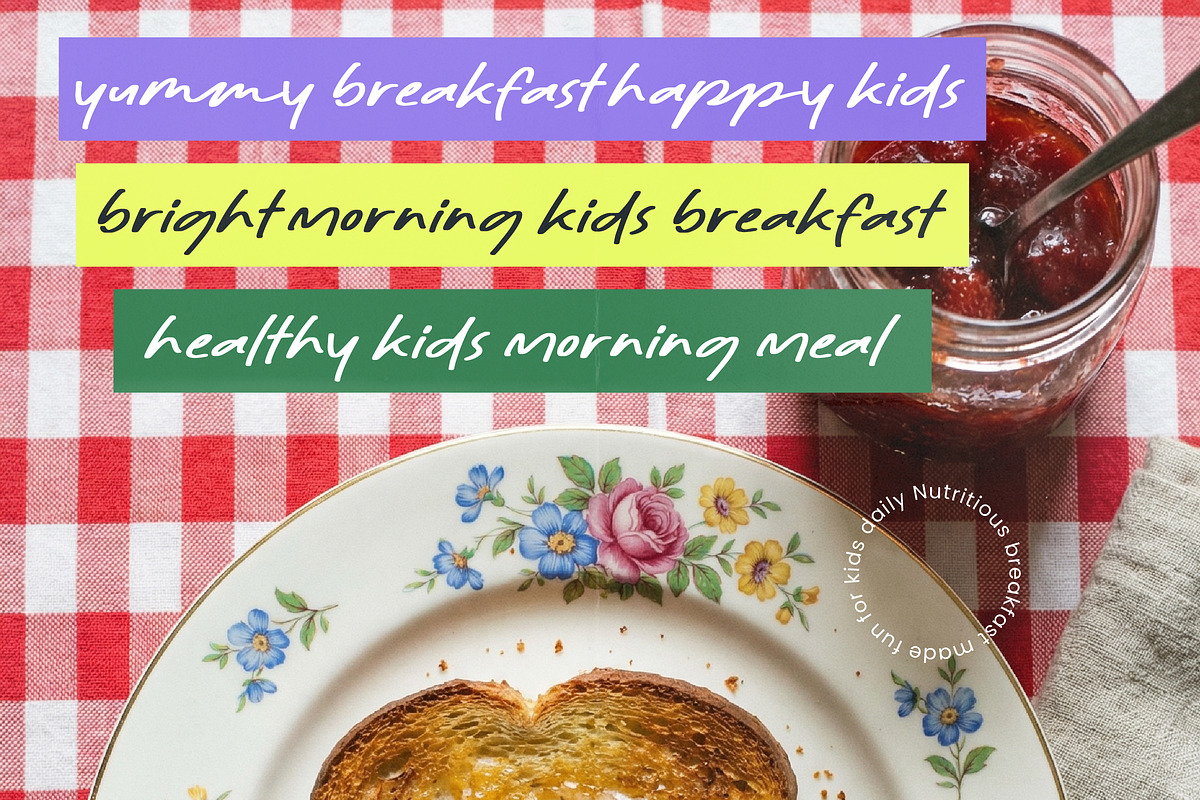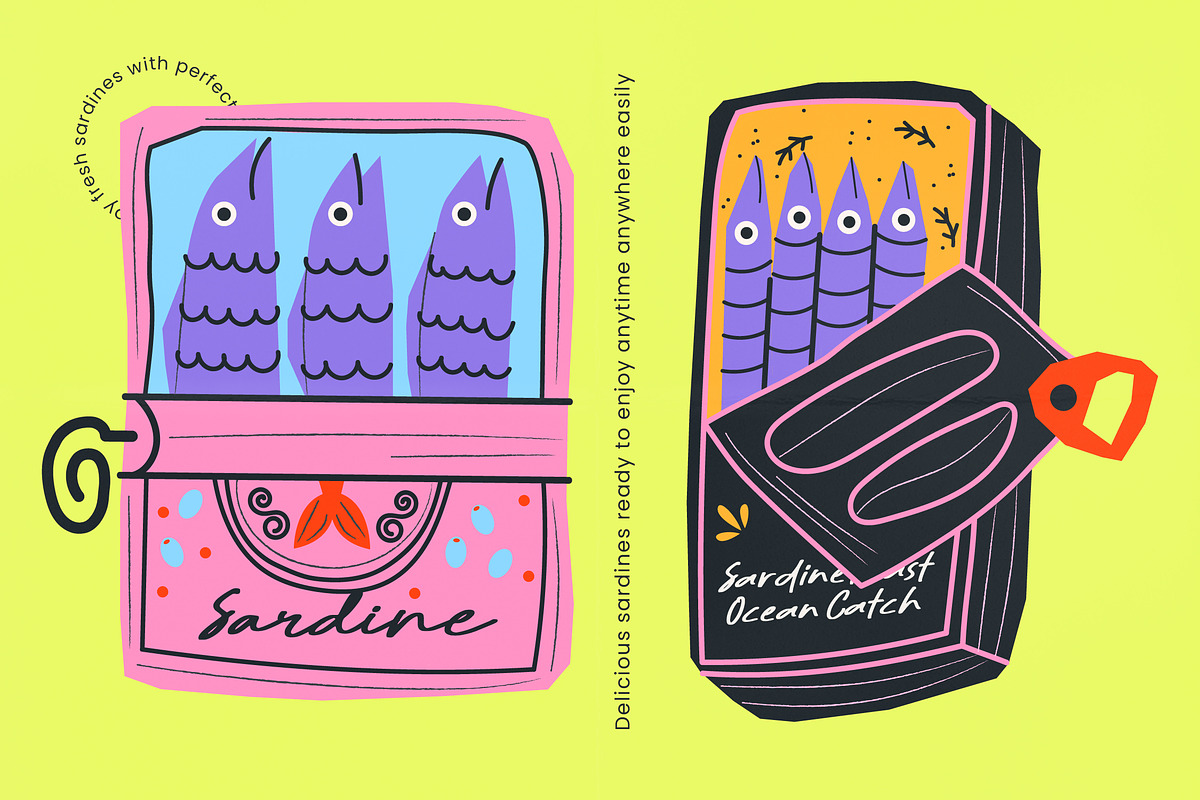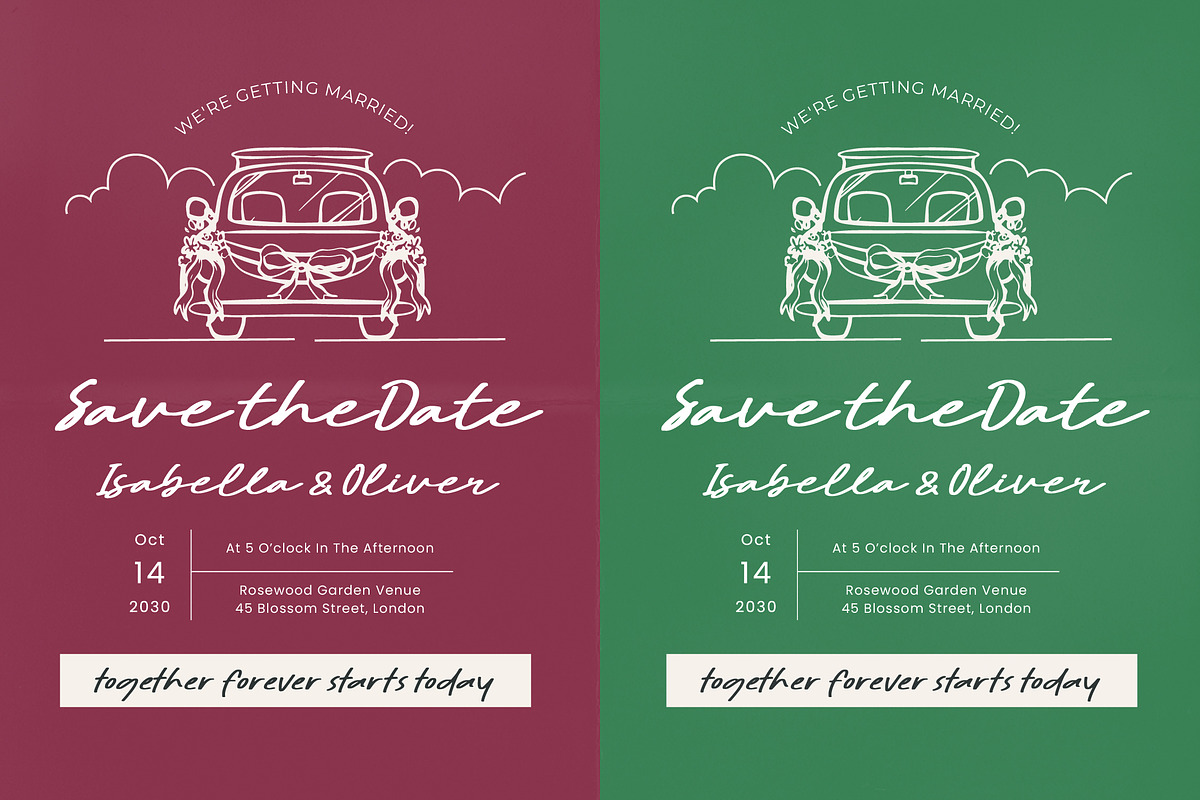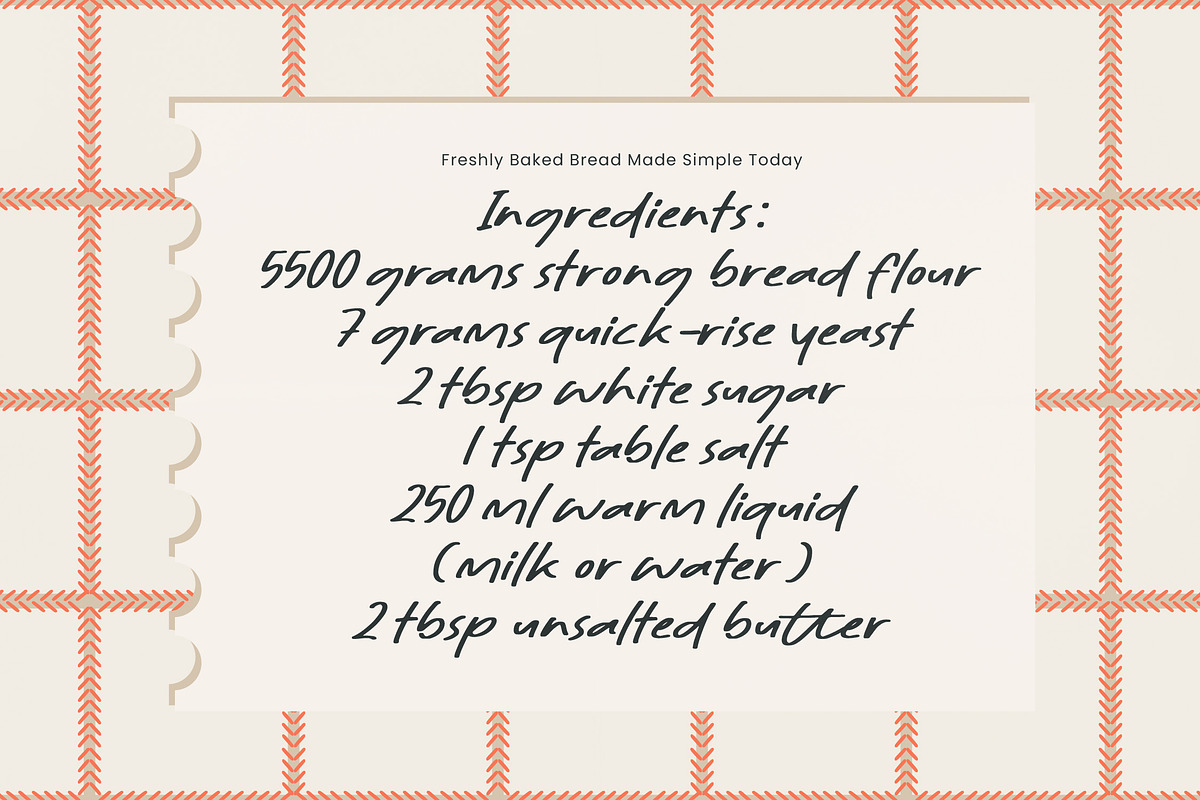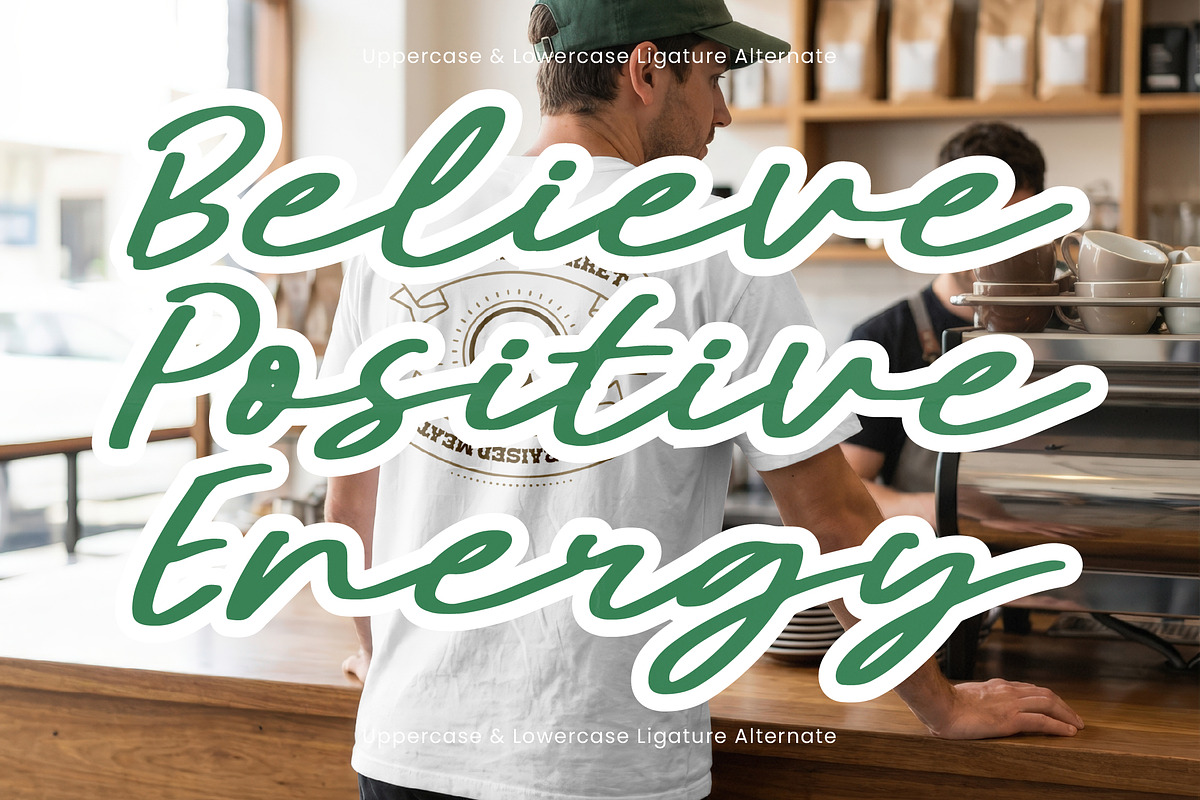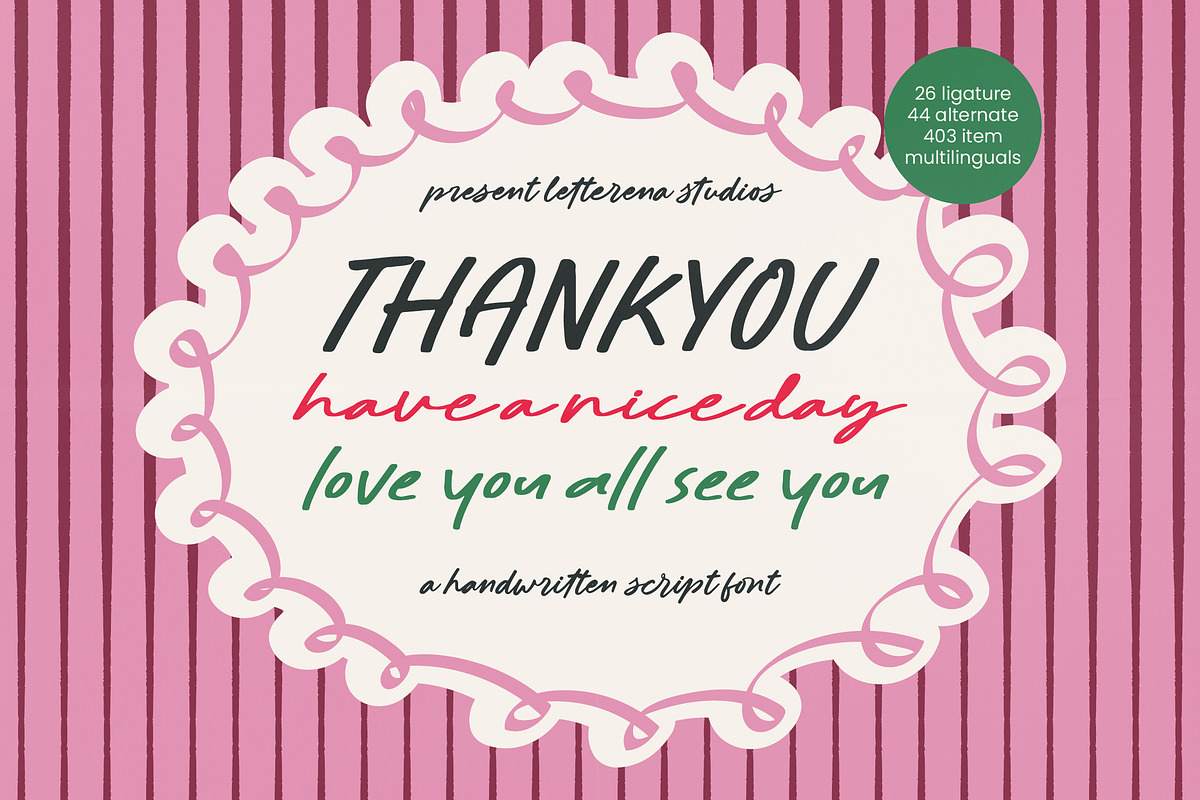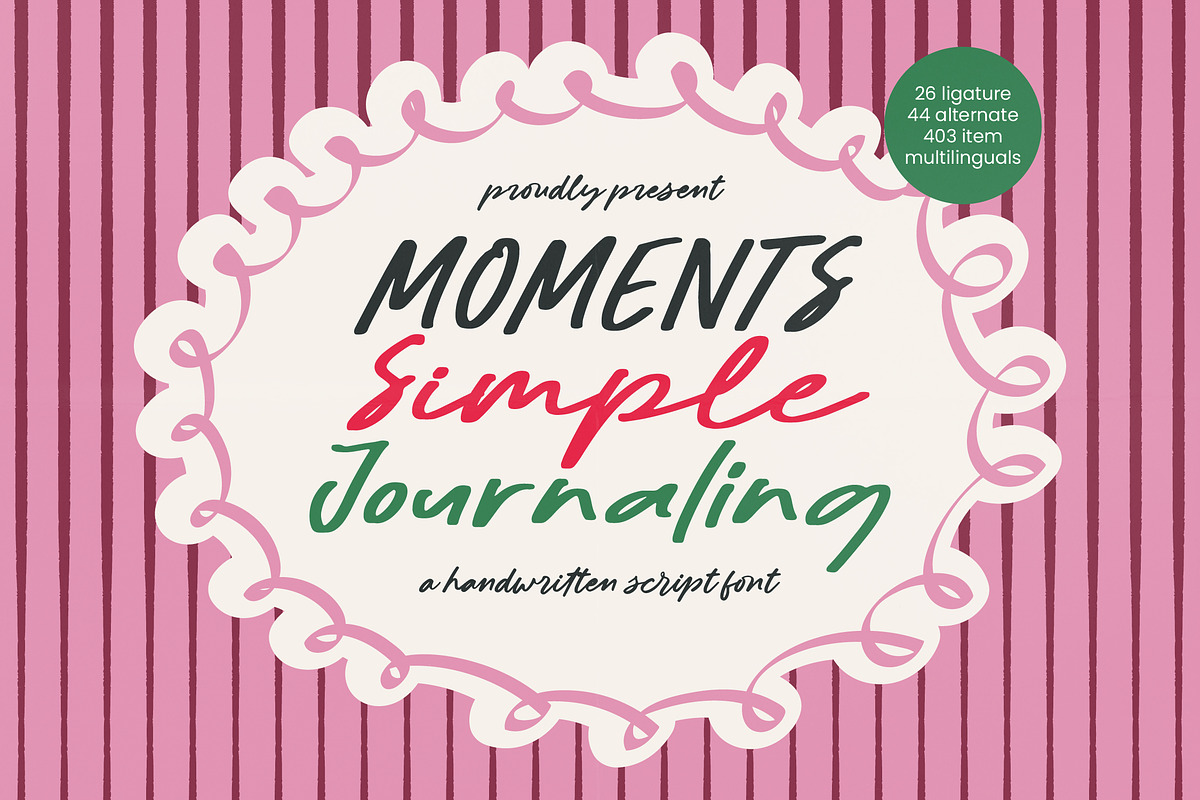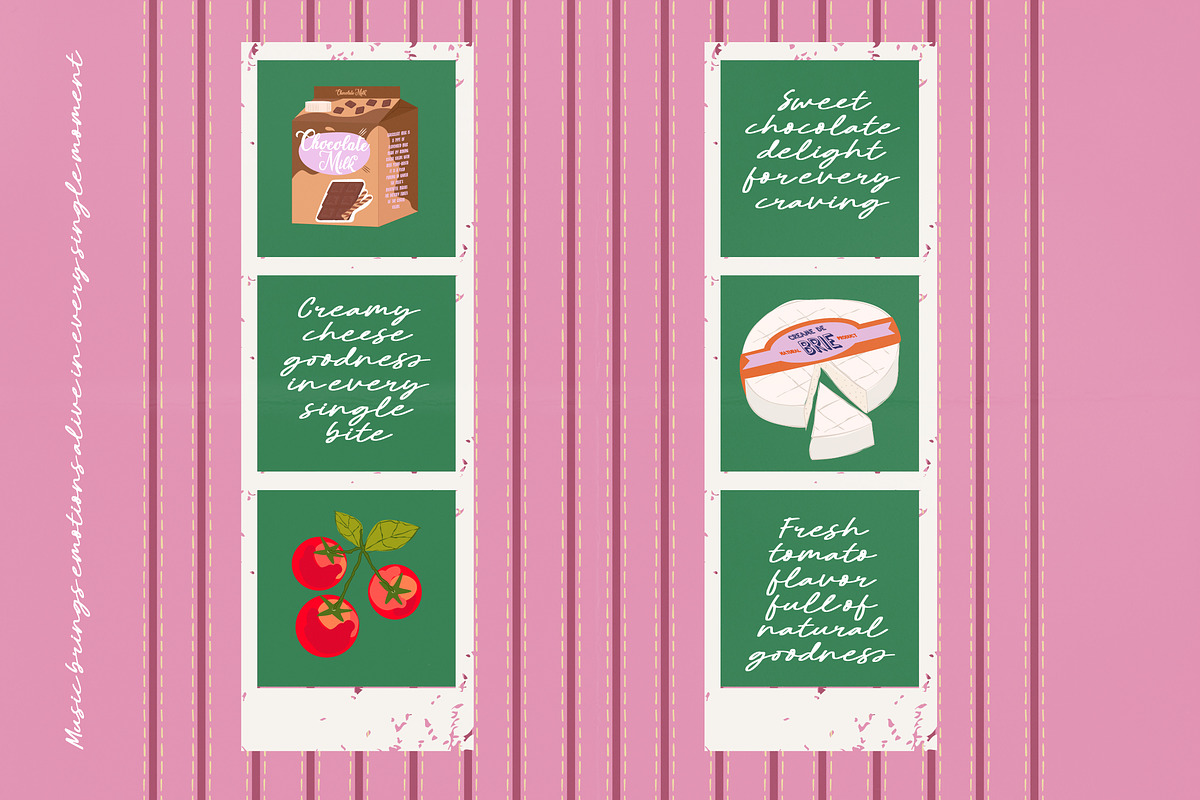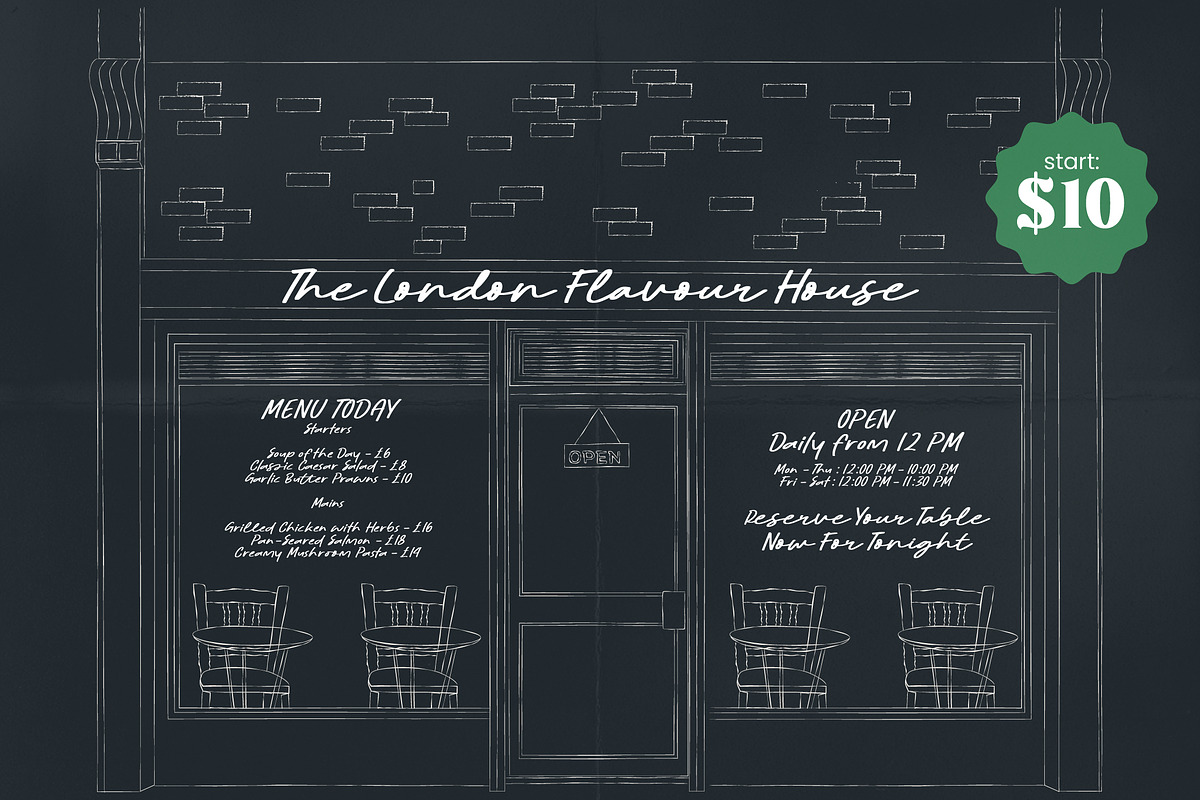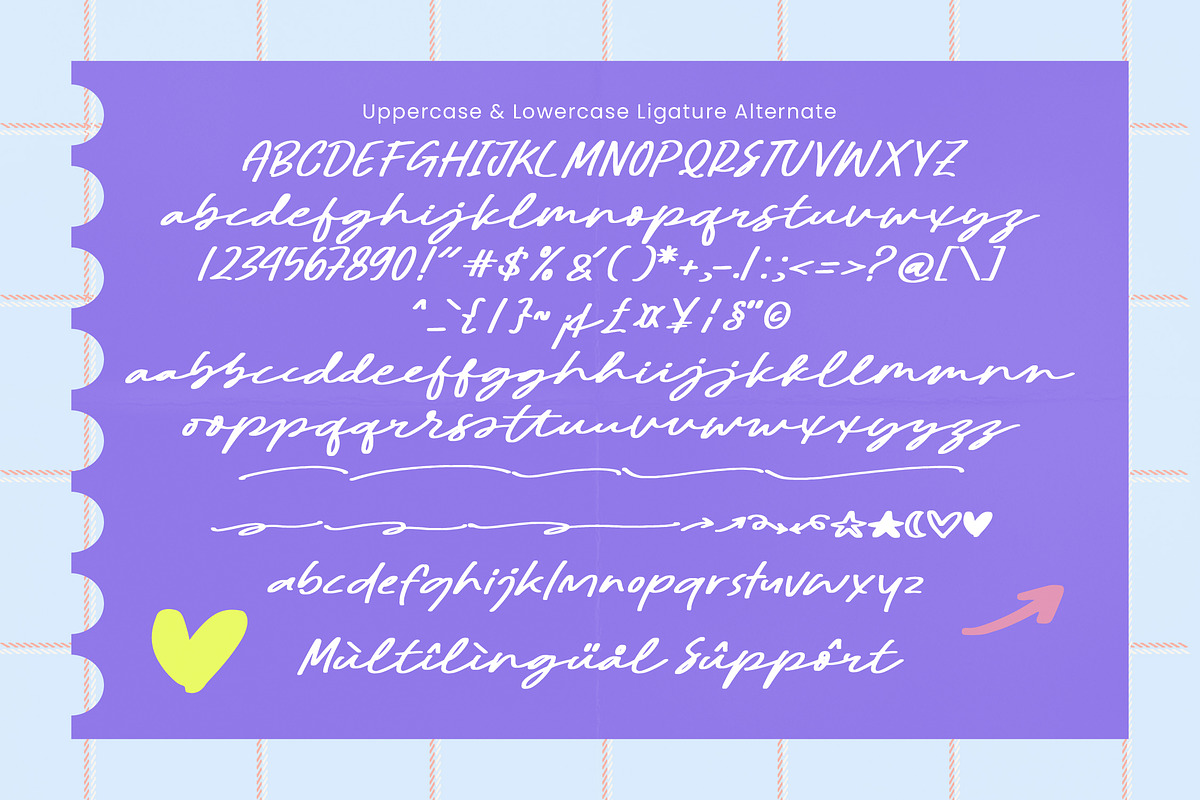
Moments Simple Journaling Script
Moments Simple Journaling - Handwritten Script Font , Elevate your creative projects with an authentic touch of human personality and warmth. Moments Simple Journaling - Handwritten Script Font is a premium typographic solution designed to bring a sense of effortless elegance and intimacy to your digital and print work. Its fluid, organic strokes mirror the natural rhythm of handwriting, providing a polished aesthetic that feels both personal and professional.
Precision meets playfulness in this meticulously crafted typeface that caters to the needs of modern designers. By featuring 26 ligatures and 44 alternates, Moments Simple Journaling - Handwritten Script Font ensures a dynamic flow that avoids the repetitive look of standard digital fonts. This level of detail allows creators to achieve a custom-made feel, giving every layout a unique and handcrafted appearance.
Global communication becomes effortless through comprehensive character sets and robust technical features. With its extensive multilingual support, Moments Simple Journaling - Handwritten Script Font adapts seamlessly across global markets, making it incredibly versatile for international projects. This inclusion of 403 individual glyphs ensures that your brand message resonates clearly and effectively with diverse audiences worldwide.
Transform your brand identity with a font that is perfect for a wide range of high-impact visuals. Moments Simple Journaling - Handwritten Script Font is the perfect choice for lifestyle branding, luxury packaging, stationery design, and editorial layouts. Whether you are crafting social media graphics or intimate greeting cards, this font provides the creative flexibility needed to stand out in a competitive marketplace.
Numerals
Punctuations (OpenType Standard)
Accents (Multilingual Characters)
Ligatures and Alternative Style Stylistic Set